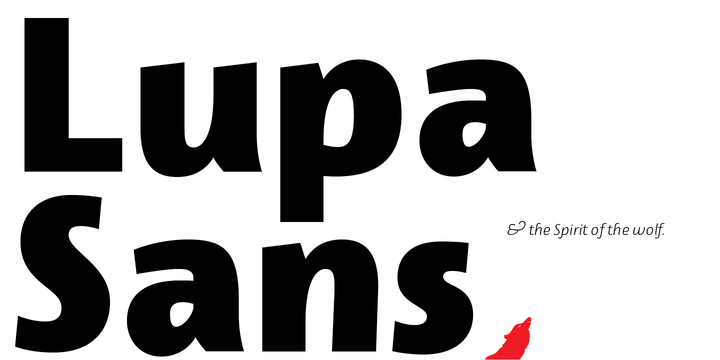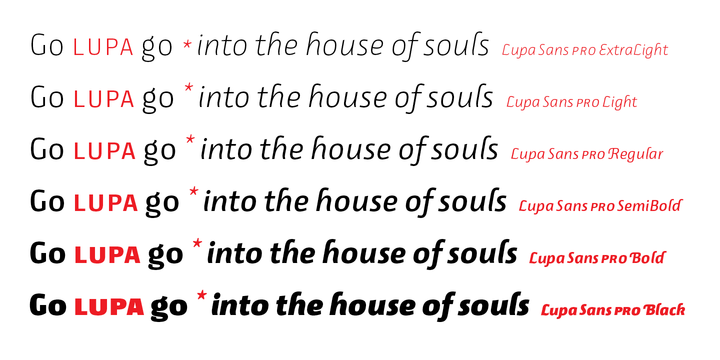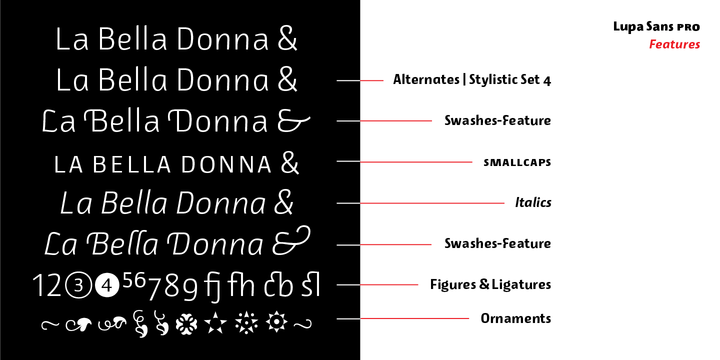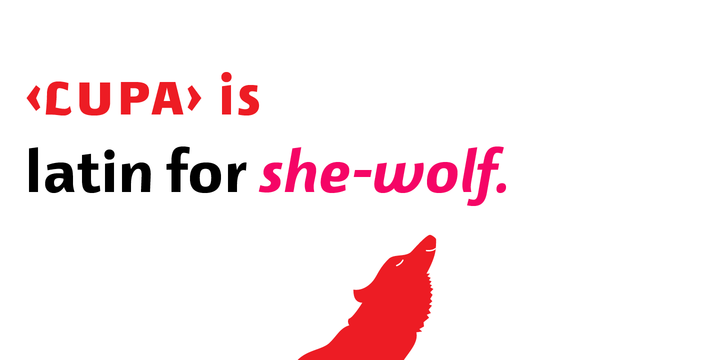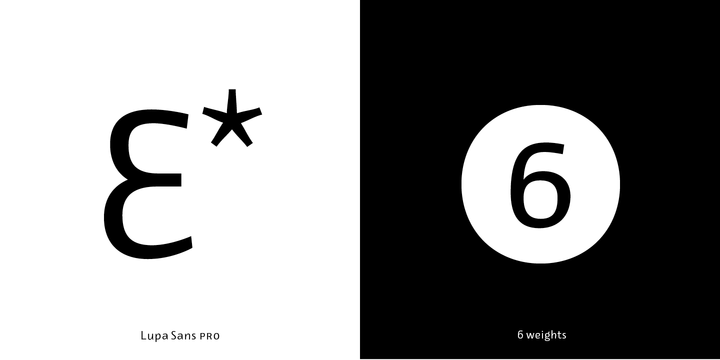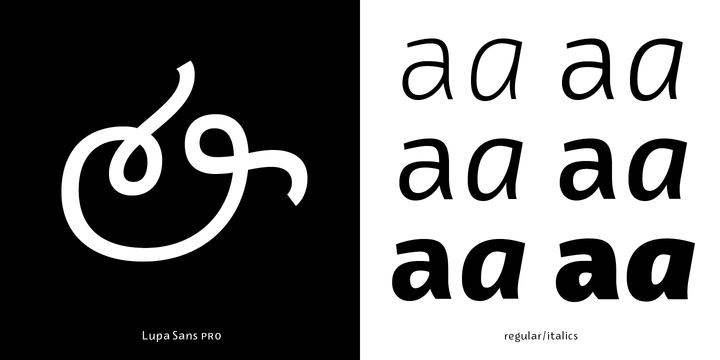
Lupa Sans Pro Font Family
The Corporate Sans Serif Typeface with 6 weights is skilled for complex typography: PRO style.
Each font has an extended character set to provide most European languages. The typefaces include ligatures, alternate- & swash letters, smallcaps, fractions, lining-, tabular numbers, superior/inferior figures and ornaments. Carefully drawn. High readability.